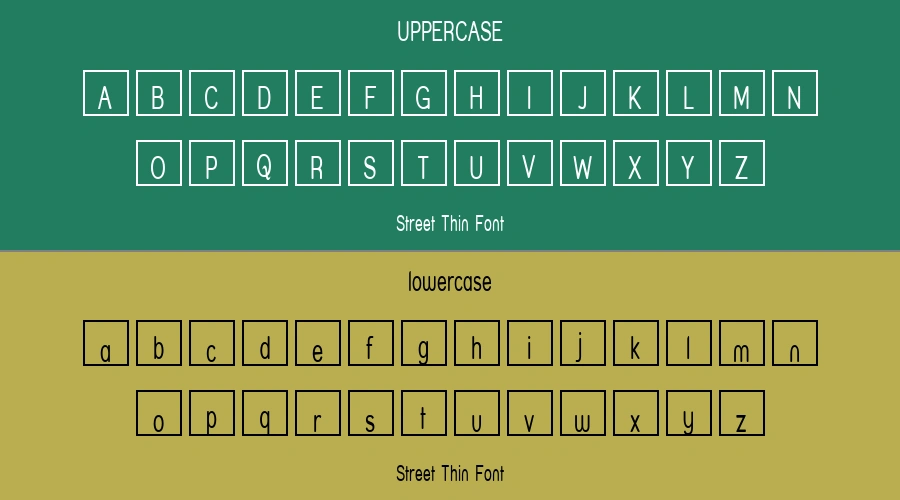
About Street Thin Font
Street Thin Font embodies typographic excellence through its masterful combination of straight stems and text flow. Created for academic publications, this typeface delivers exceptional craftsmanship and traditional values across all applications. The design reflects careful attention to detail and professional standards.
Advanced capabilities include distinctive consistent strokes and versatile monogram components, giving designers creative control. When used in specification lists, Street Thin Font exhibits remarkable headline impact. The harmonious balance between counter size and technical innovation sets this typeface apart.